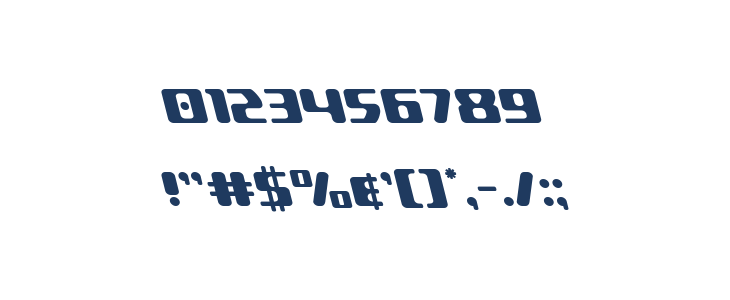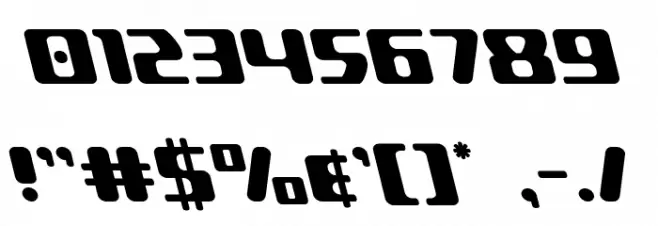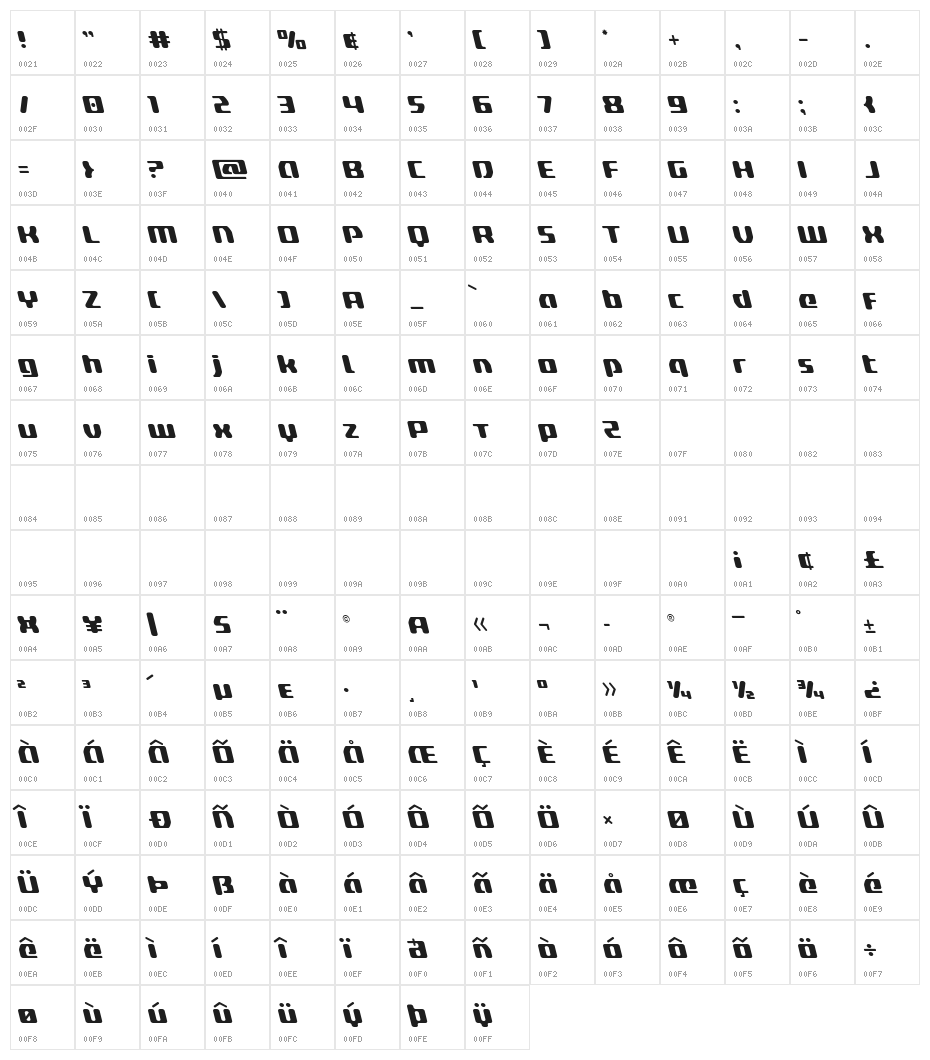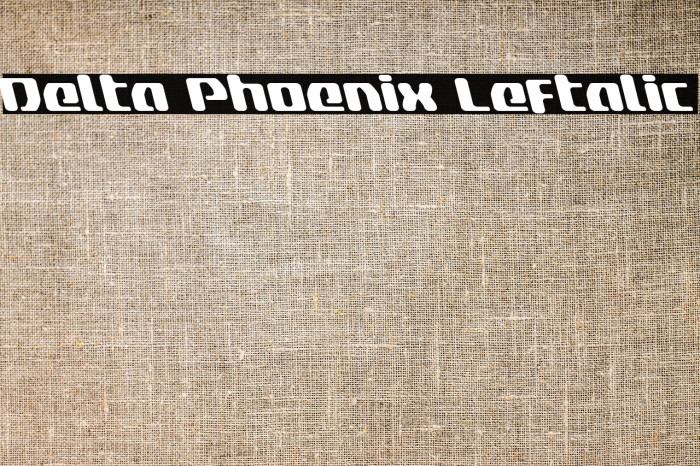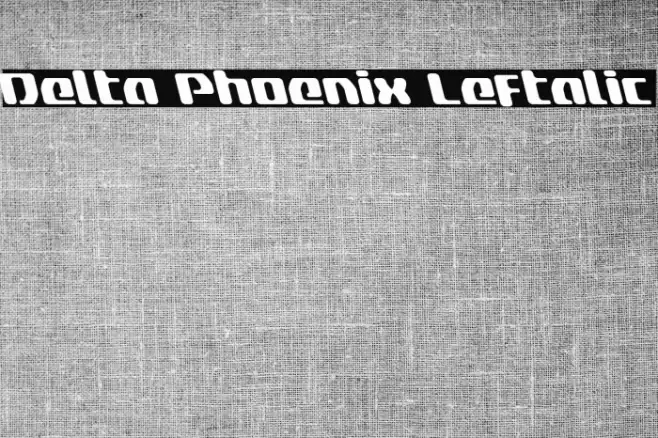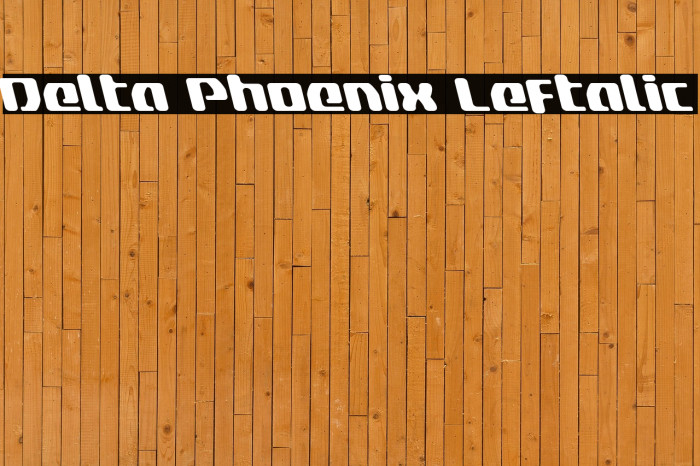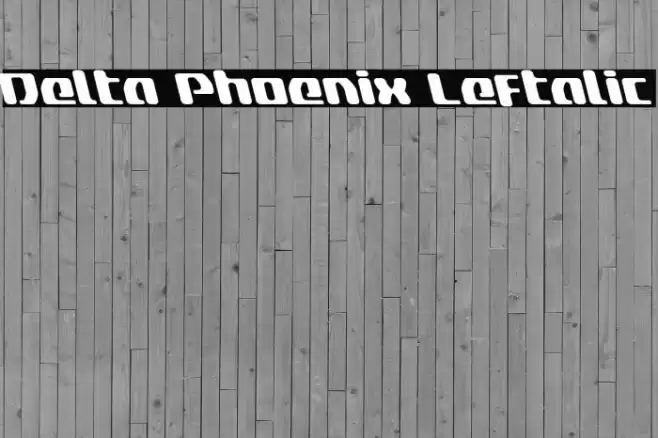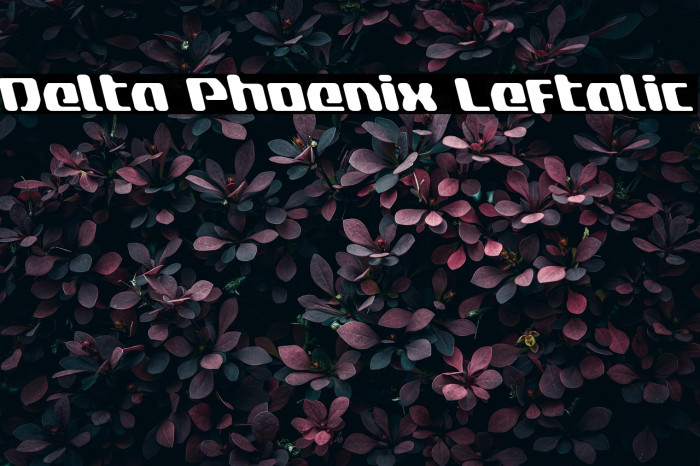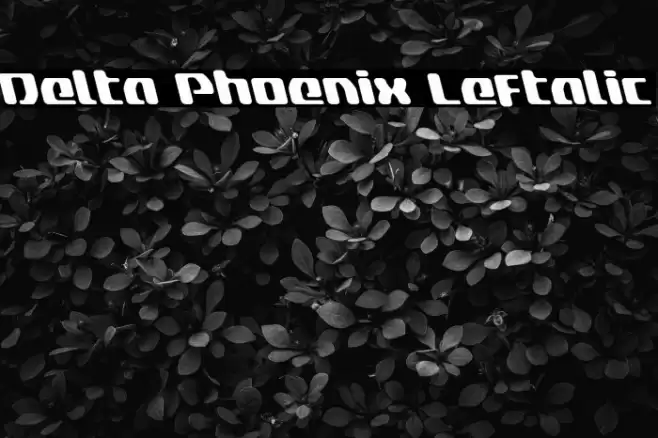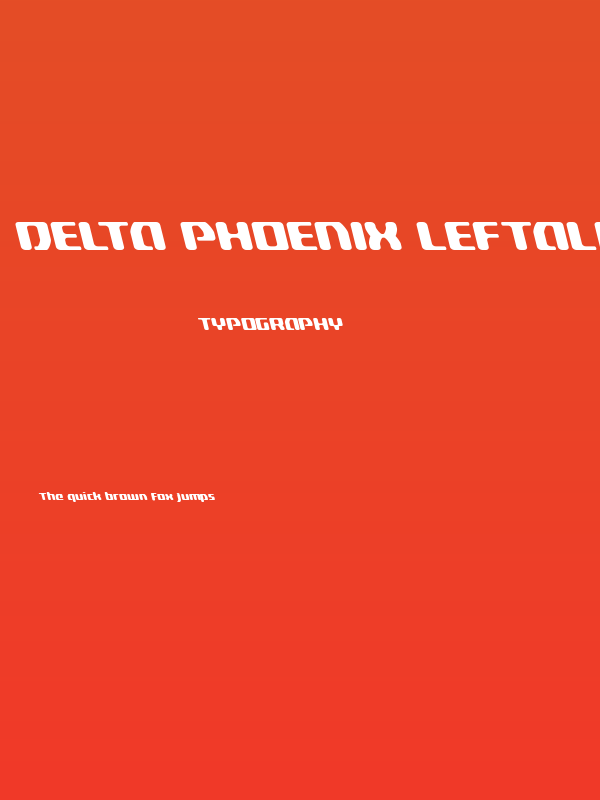
Delta Phoenix Leftalic Font
Delta Phoenix Leftalic Description
This font features a bold and modern design with a distinct geometric style. The characters are slightly slanted, giving an italicized appearance that adds dynamism and movement. The strokes are thick and uniform, contributing to a strong visual impact. The overall design is clean and futuristic, with a unique blend of sharp angles and smooth curves. The uppercase and lowercase letters maintain a consistent style, while the numerals and special characters complement the alphabet with their bold and structured forms. This font is ideal for projects that require a contemporary and assertive look.